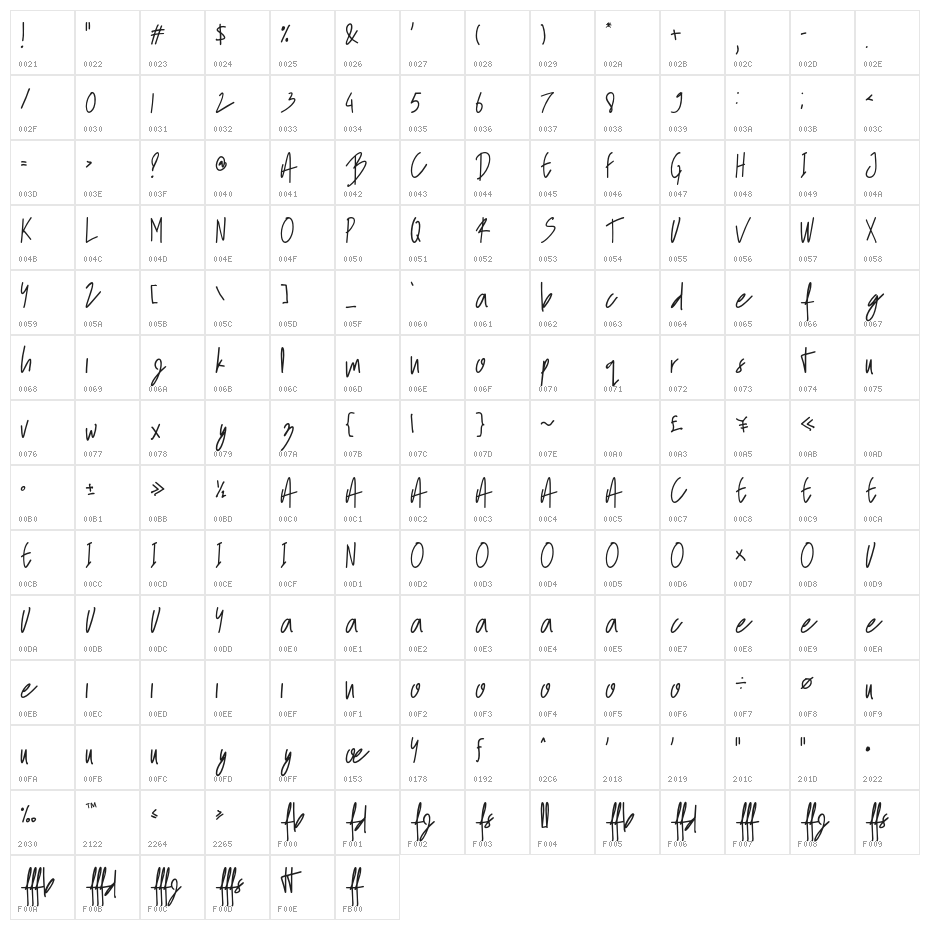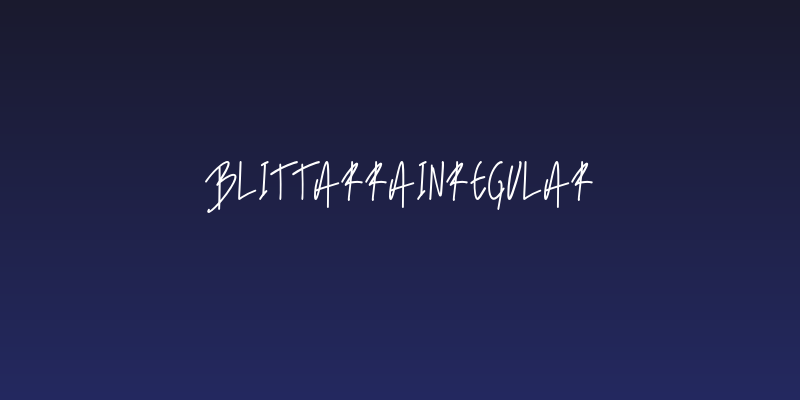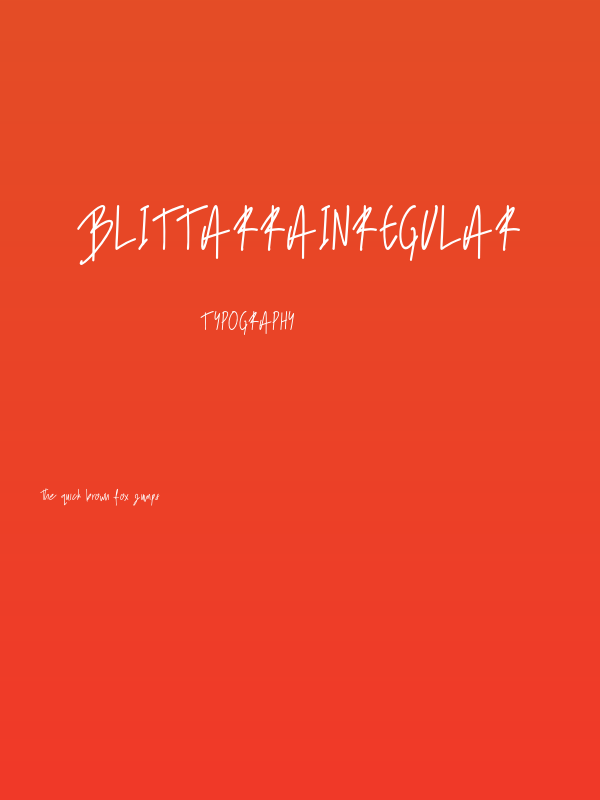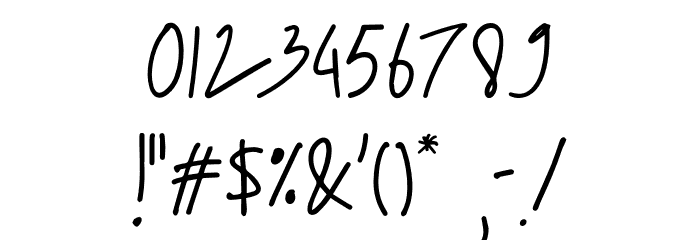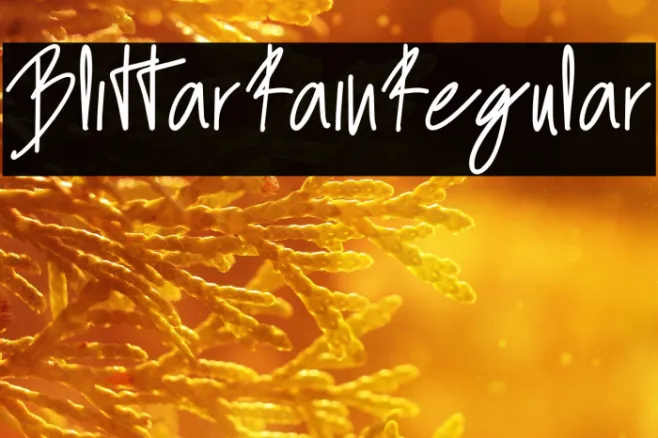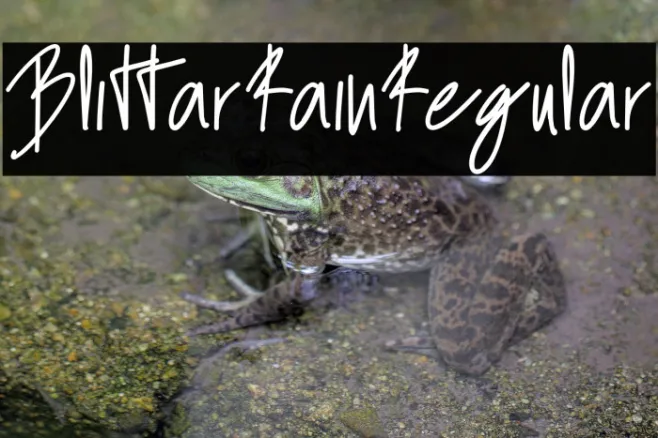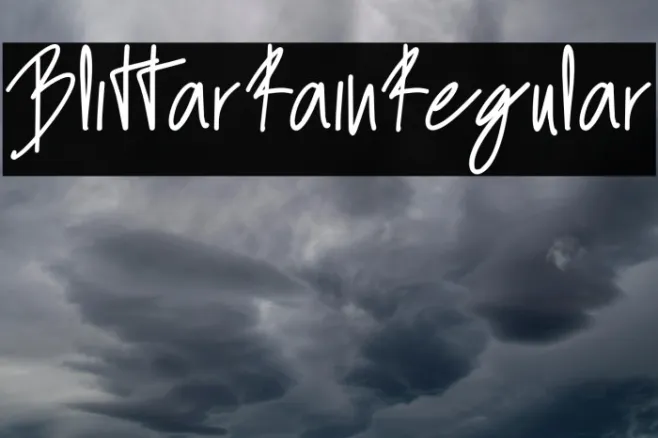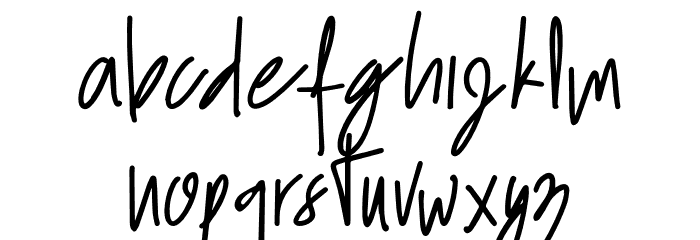
BlittarRainRegular Font
BlittarRainRegular Description
This font features a handwritten style that exudes a casual and personal touch. The letters are slightly slanted, giving a dynamic and lively appearance. The strokes are uneven, mimicking the natural flow of handwriting, which adds to its charm. The uppercase letters are bold and prominent, while the lowercase letters maintain a consistent style, enhancing readability. Numbers and special characters are crafted to match the overall aesthetic, making the font versatile for various uses. The playful yet legible design makes it suitable for creative projects.
| Use Case | Logos, Invitations, Greeting Cards |
| Proposed Projects | Ideal for personal notes, invitations, greeting cards, and creative branding projects. |